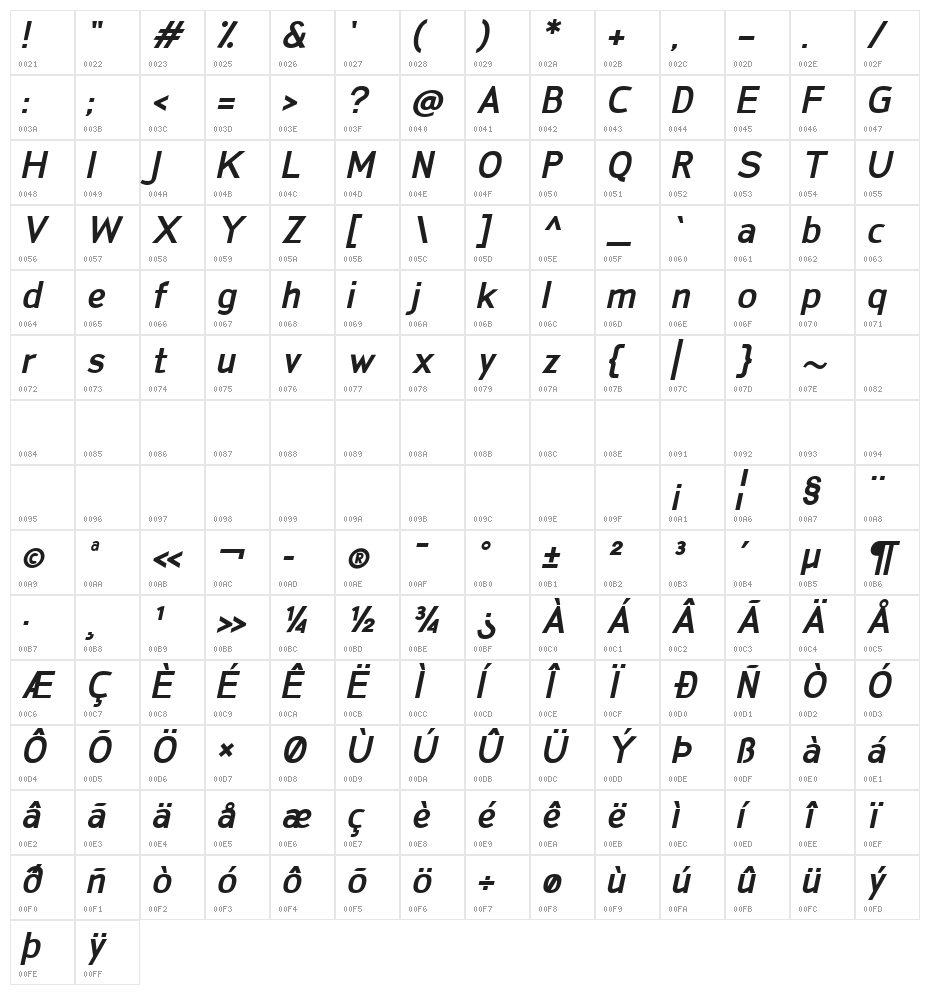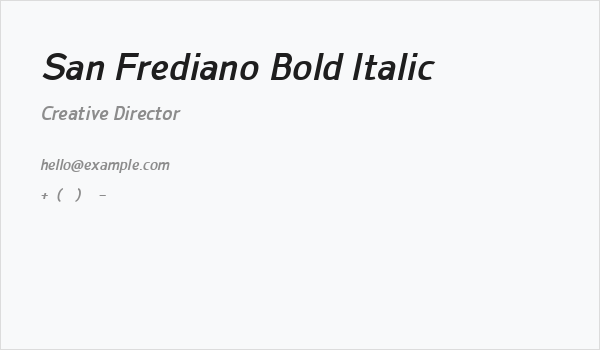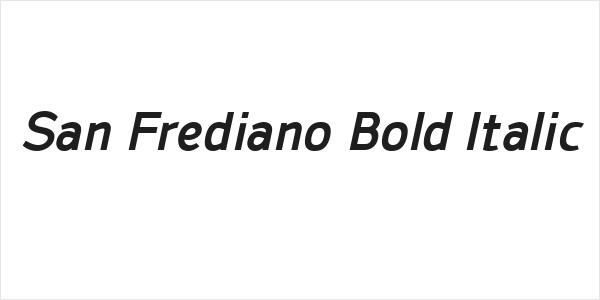
San Frediano Bold Italic Font
San Frediano Bold Italic Description
This font exhibits a bold and italicized style, characterized by its strong, slanted letterforms that convey a sense of dynamism and emphasis. The strokes are consistent and smooth, providing a modern and clean appearance. The uppercase and lowercase letters maintain a uniform slant, enhancing readability while adding a touch of elegance. The numerals and special characters follow the same stylistic approach, ensuring a cohesive look across all glyphs. This font's boldness and italic nature make it suitable for creating impactful headlines and titles, while its clarity ensures it remains legible in various contexts.
| Proposed Projects | Ideal for branding, advertising, and editorial design where emphasis and modernity are desired. |